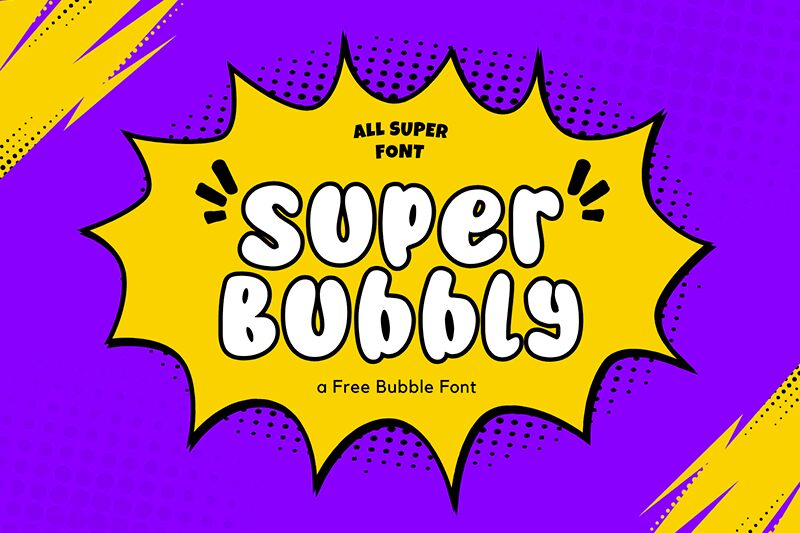
Super Bubbly
Super Bubbly font is a captivating display typeface, created by fsuarez913 featuring playful and whimsical charm. It’s bold, stroke-based design inspired by cartoons with rounded forms gives it an overall feeling of happiness and light heartedness which makes this font perfect for any design project.
This adaptable font works well in children’s books or branding for fun products; but also catches eyes on social media posts too! With its unique style audience’s will be drawn to it bringing energy & excitement with them.